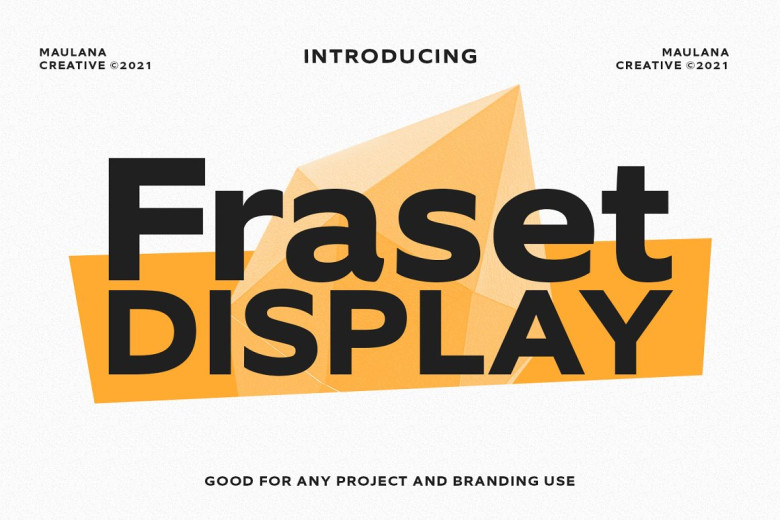
Fraset Font
Fraset is a sans-serif display typeface. Its overall image is stylish. It offers all the features of our own original font system, including a heavier weight than many similar fonts on the market today. Good for logo design, social media, movie titles, book titles, short text, long text.
Fraset Sans Serif Font